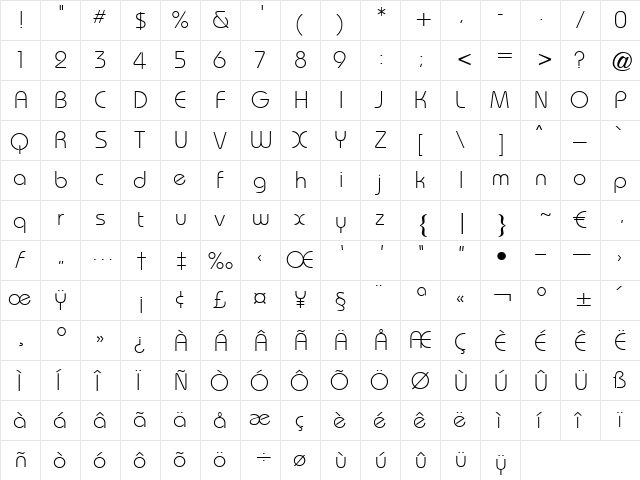
Architekt Regular
Design Context for Architekt Typeface
Architekt offers clean, dependable letterforms without strong stylistic allegiance, making it a practical choice for designers who need flexibility.
Pro Tip: Pair Architekt with a font of contrasting weight or personality to build a more expressive typographic hierarchy.